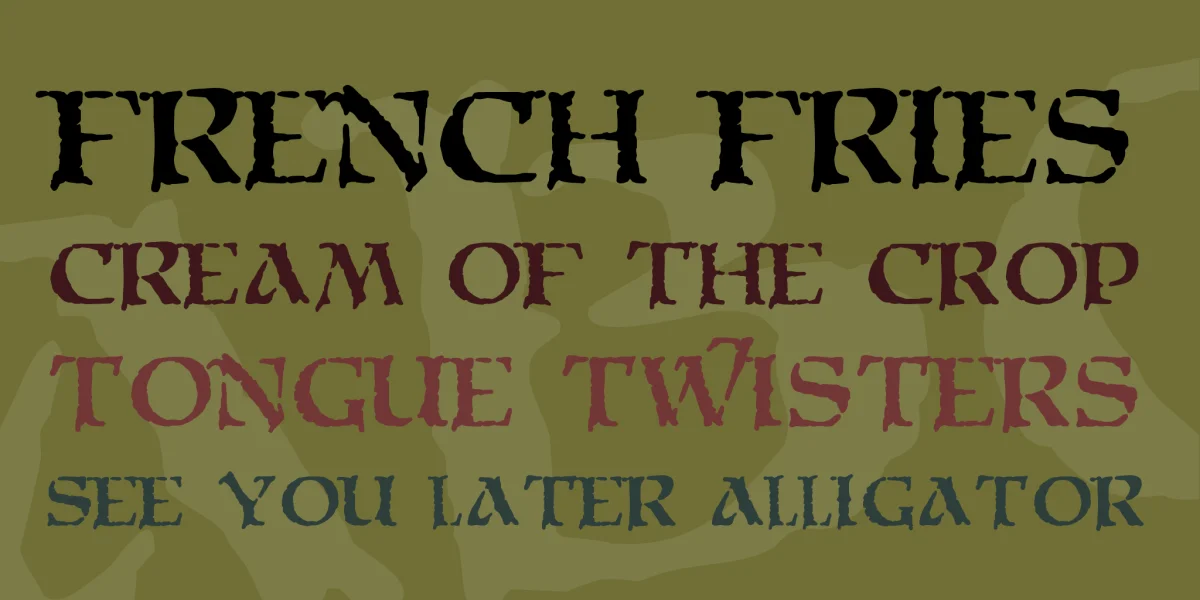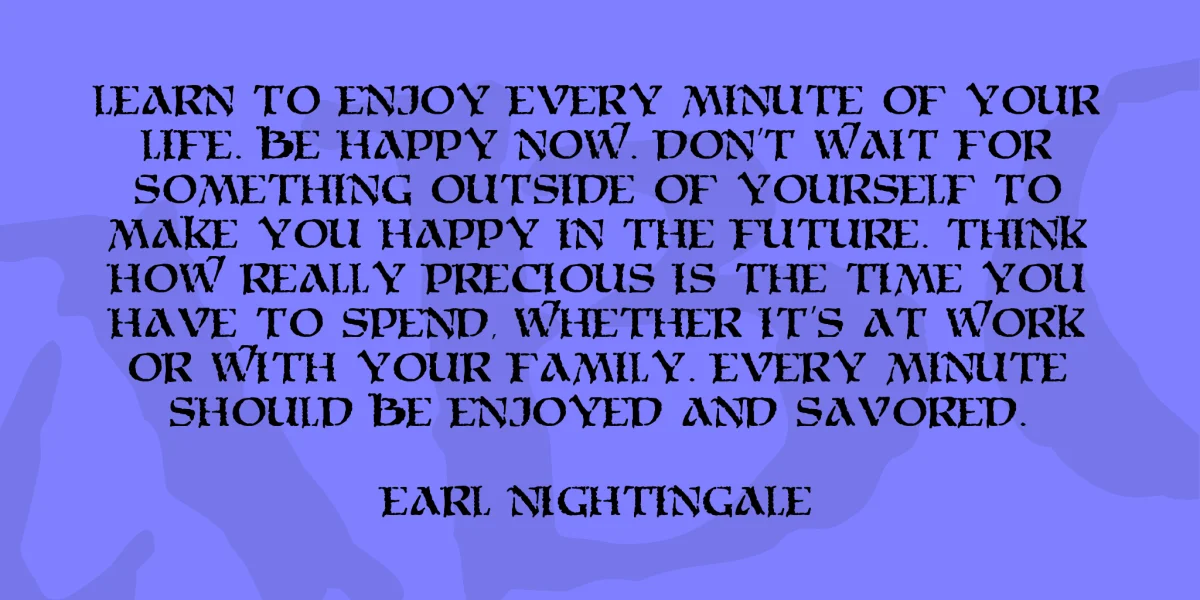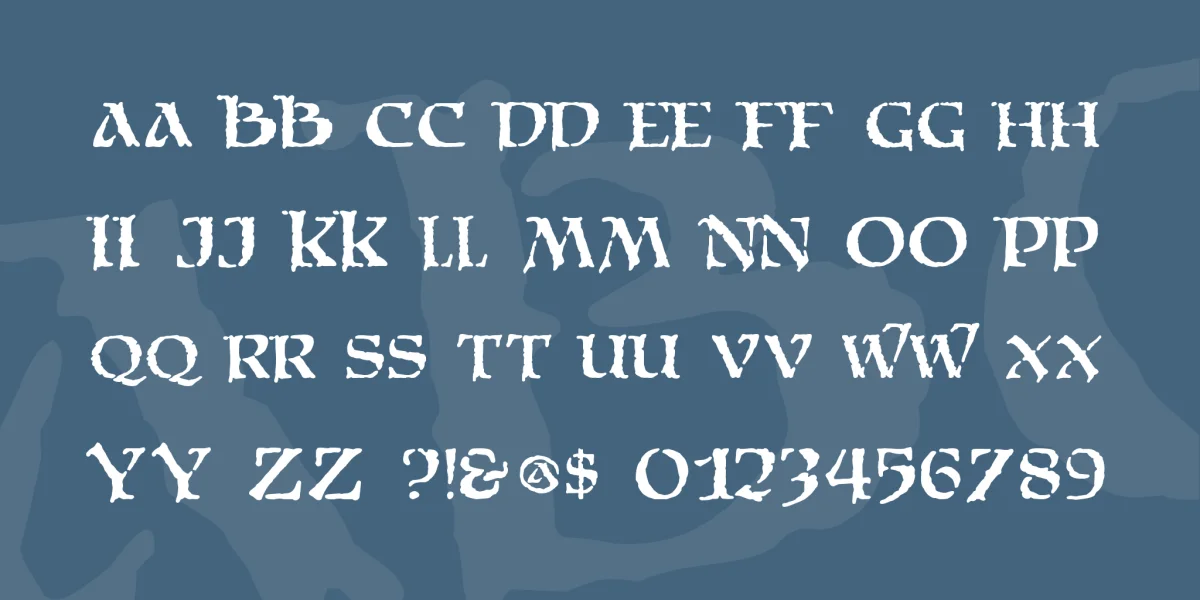
This is based on the old Formatt Presson Type font, Stonehenge. But since there is already a good font called Stonehenge, I am calling it Moria. This has long been one of my favorite fonts, and I hope you like it.